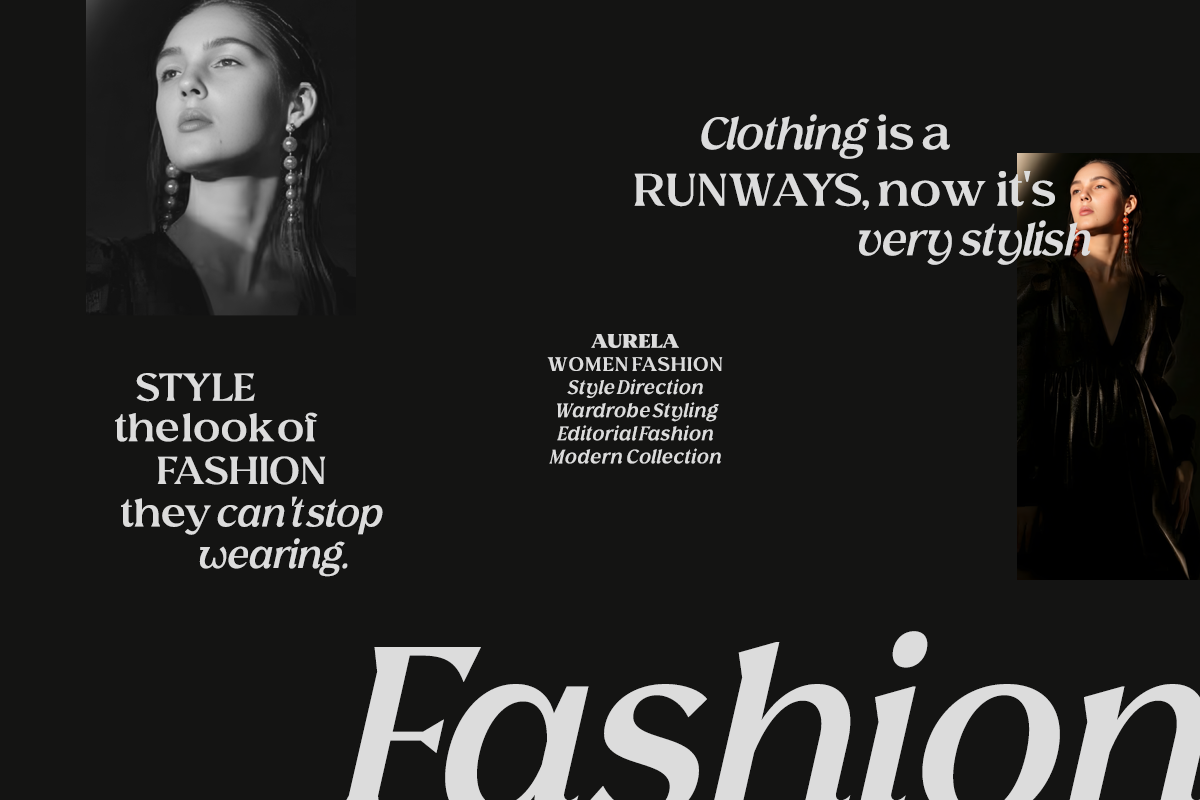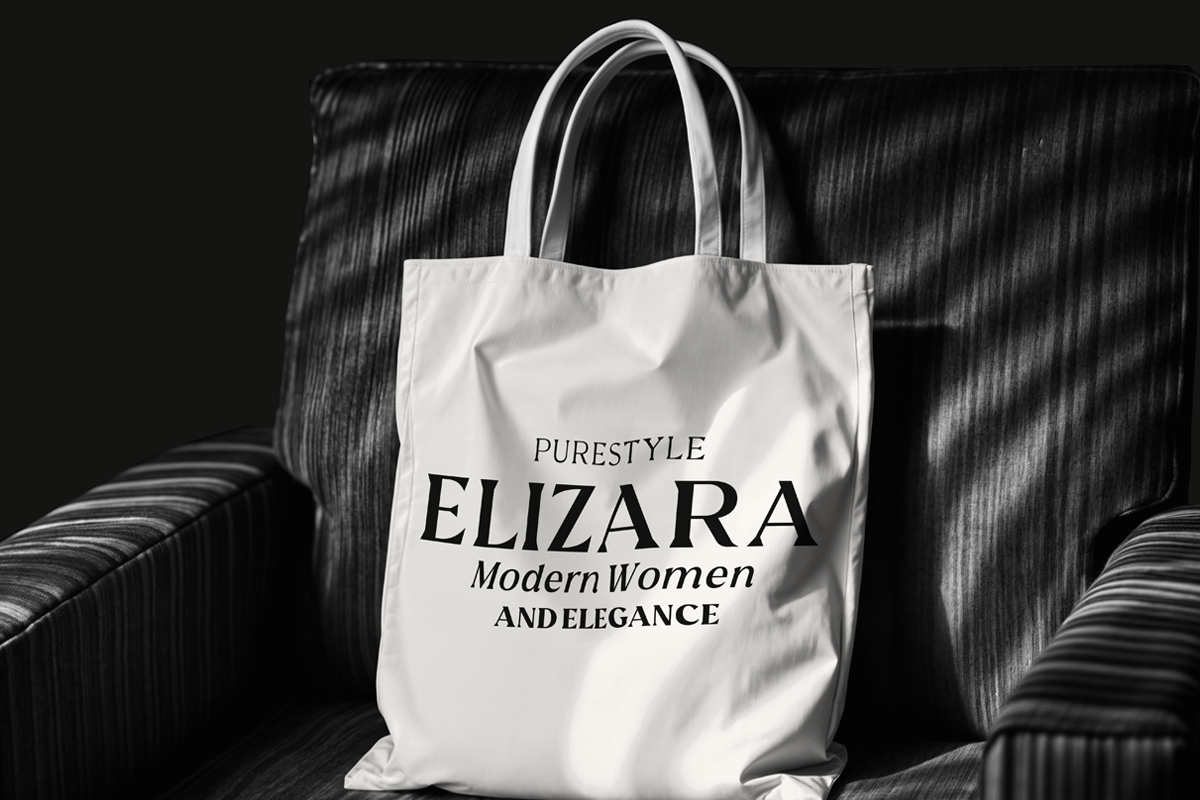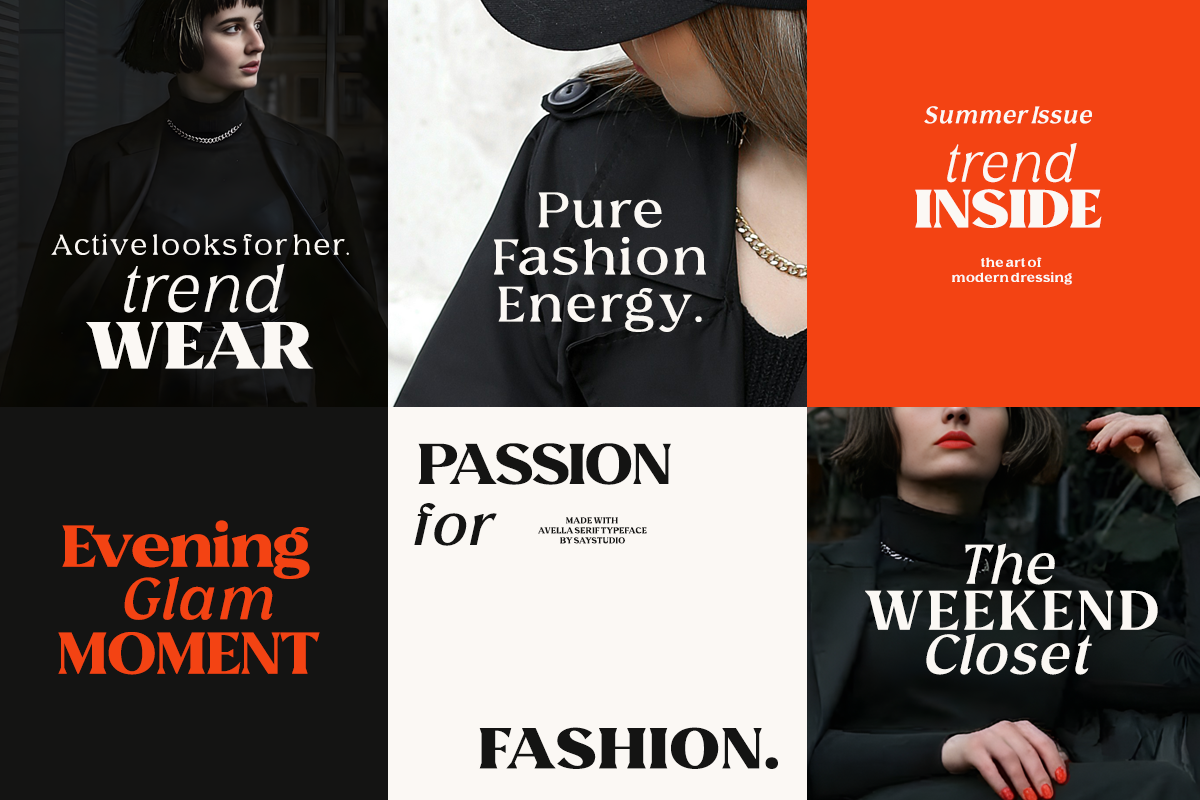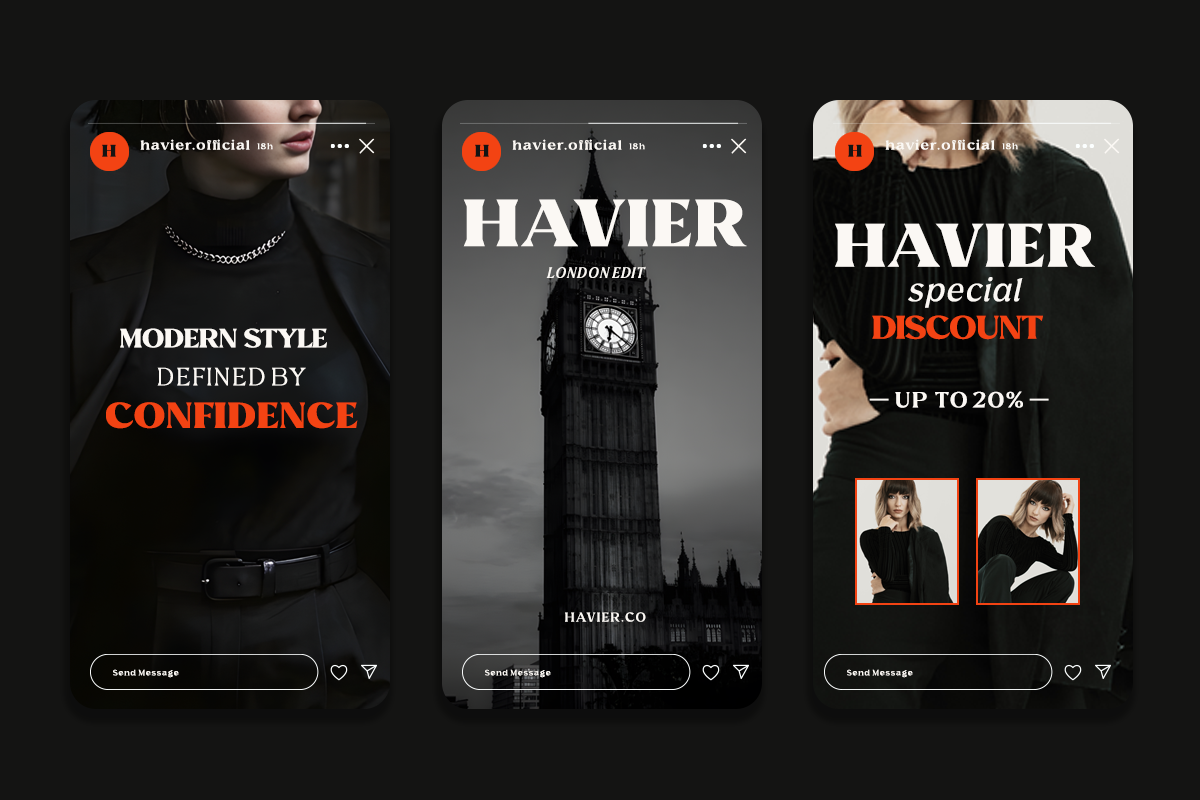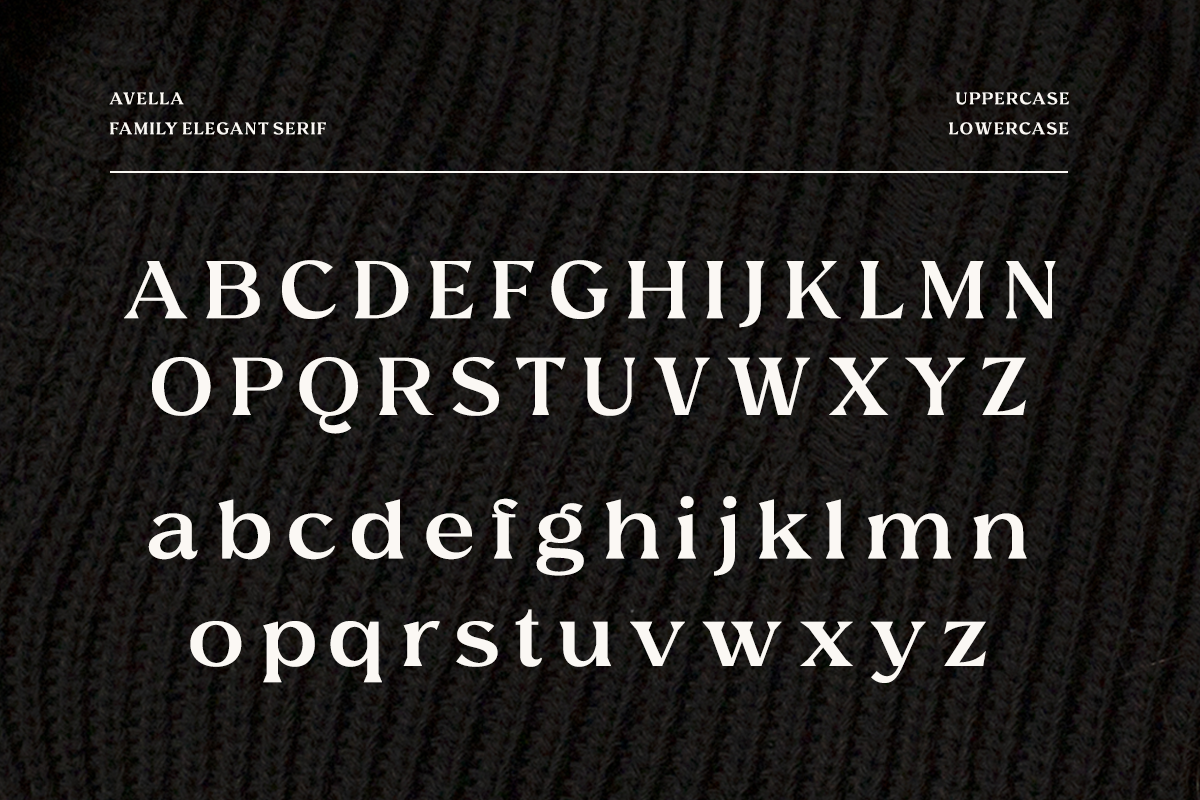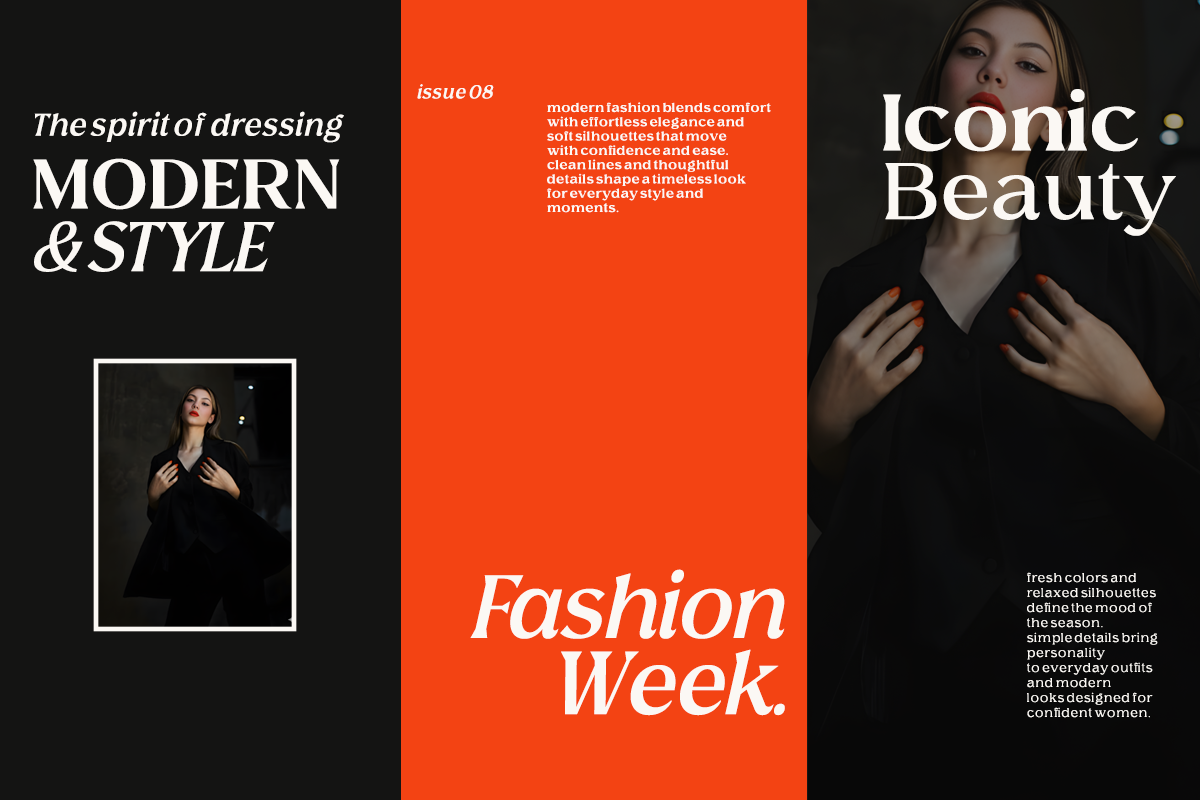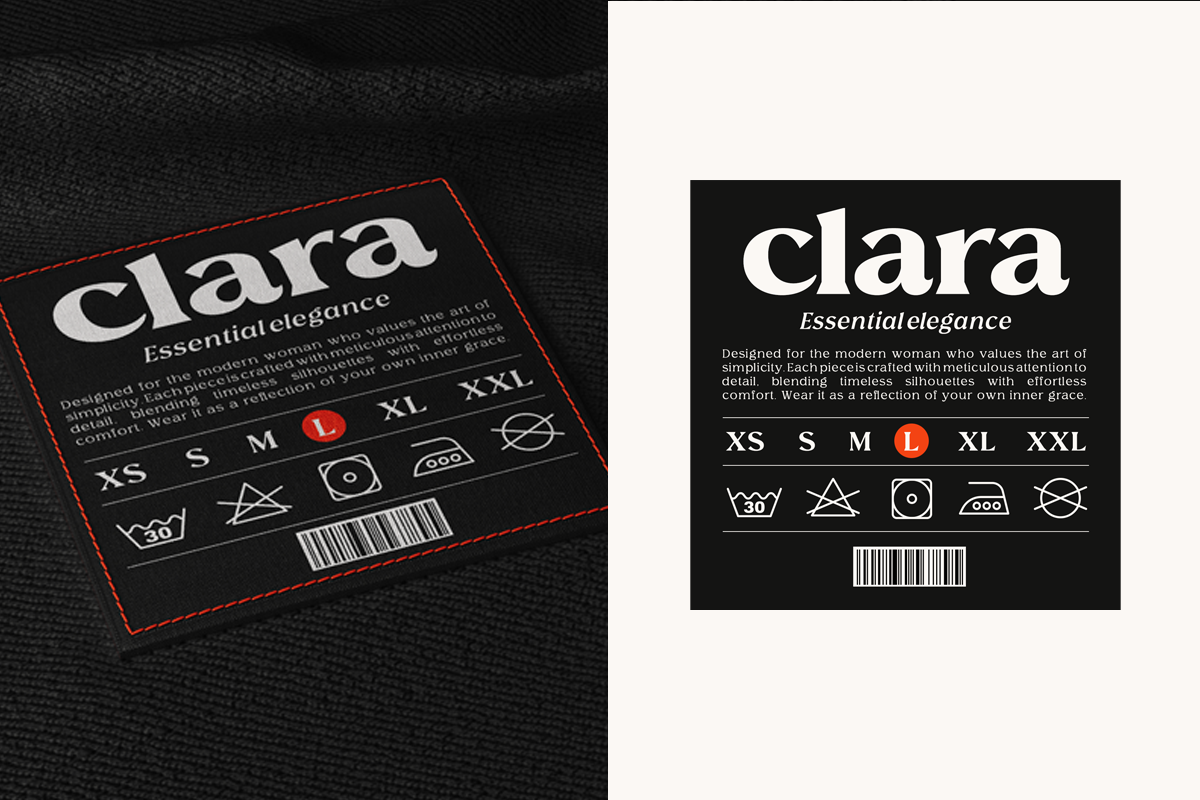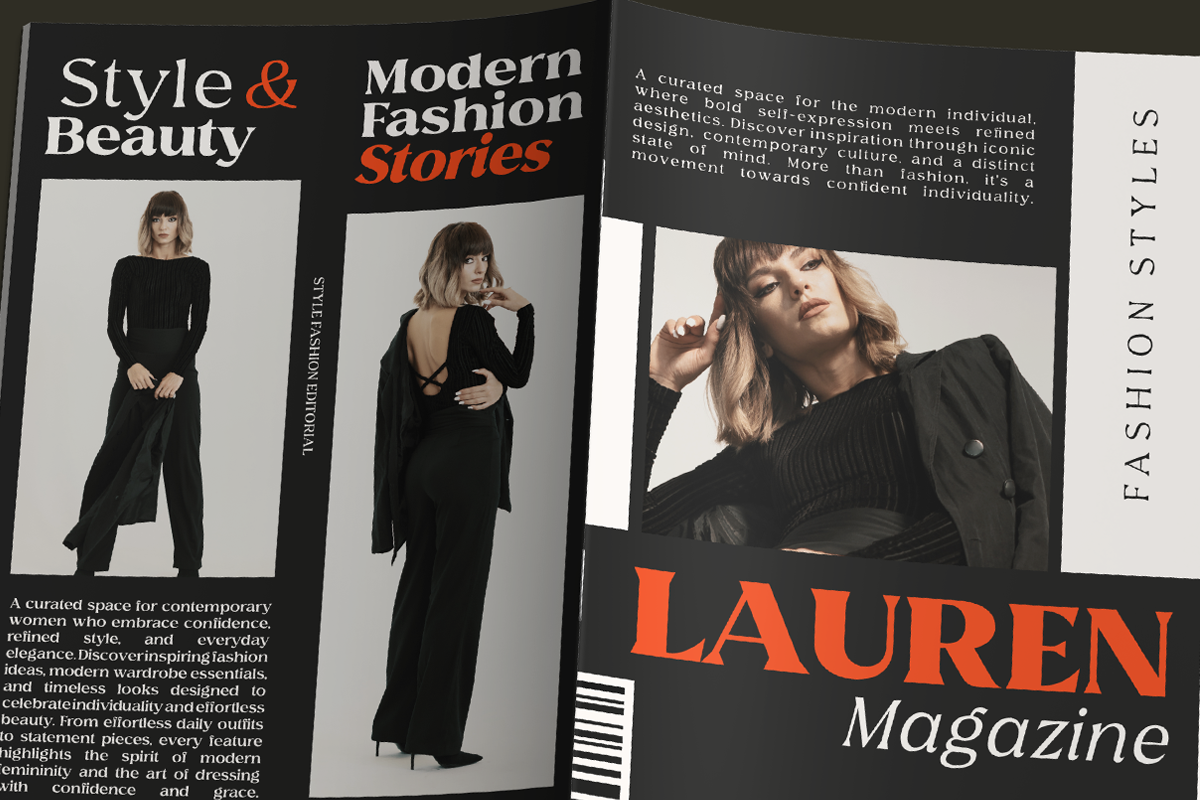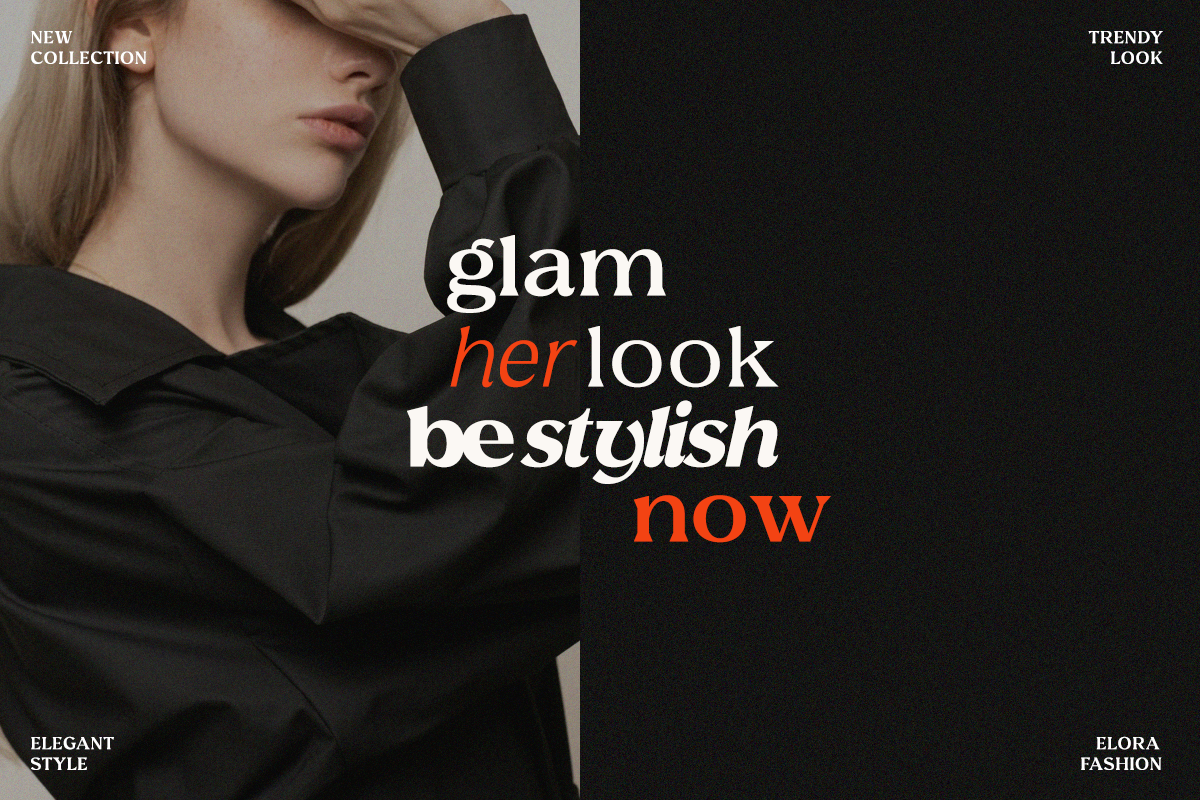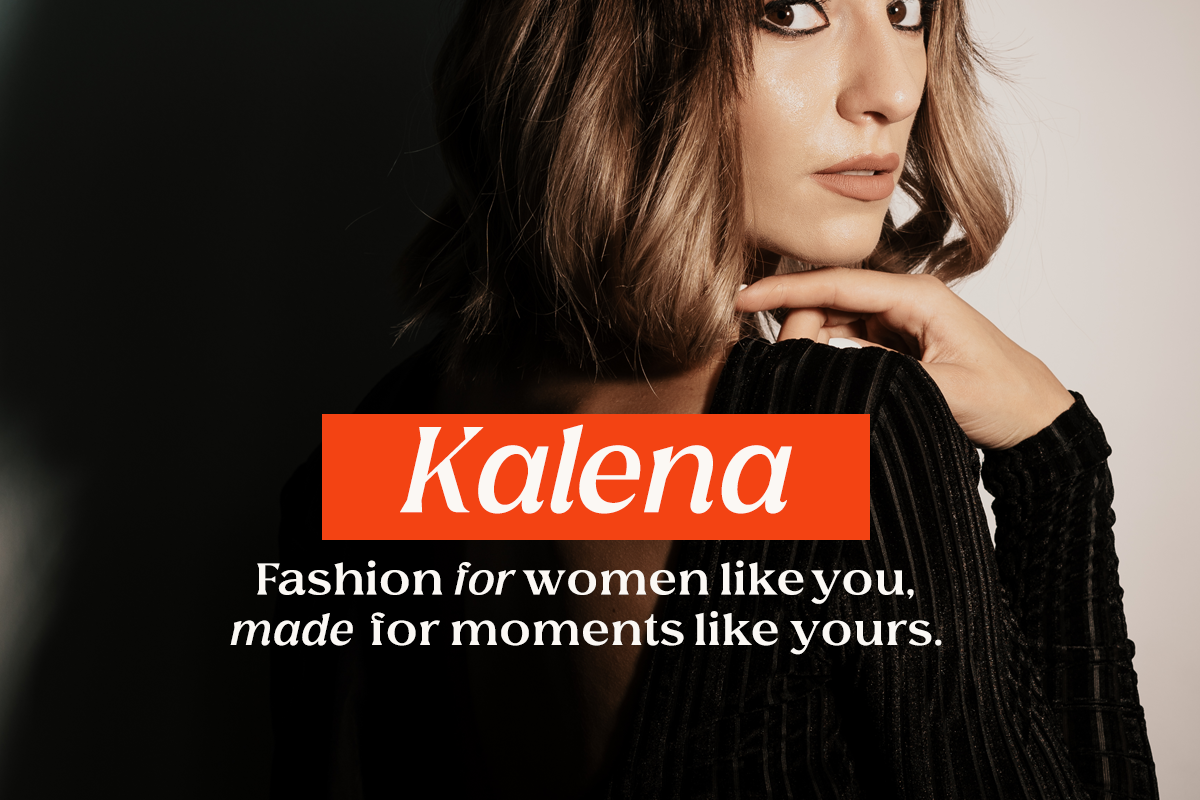
Elegant Editorial Serif - Avella
Avella is a modern elegant serif font family designed to deliver sophistication across a wide range of creative applications. With its refined structure and high-contrast strokes, Avella captures the essence of luxury and professionalism. Each letterform is carefully crafted to create a balanced and graceful appearance, making it perfect for high-end visual design.
Built as a complete family, Avella offers multiple weights from thin to black, along with beautifully styled italics. This versatility allows designers to create dynamic and cohesive typography systems—whether for editorial layouts, branding, or premium packaging. The smooth transitions between weights ensure consistency while giving full creative control.
Perfect for fashion, magazines, corporate branding, and luxury design, Avella stands out with its timeless elegance and modern flexibility. It’s a reliable choice for designers who want to create impactful, stylish, and professional visual identities.